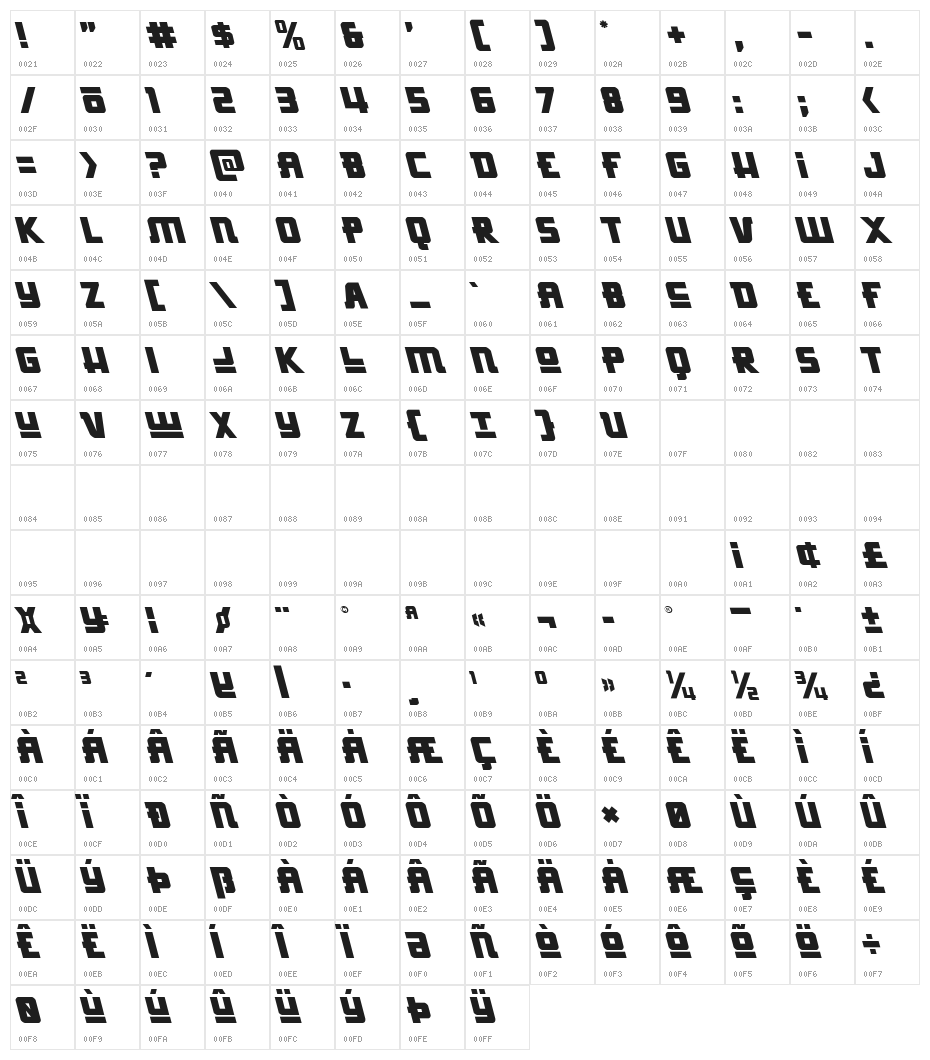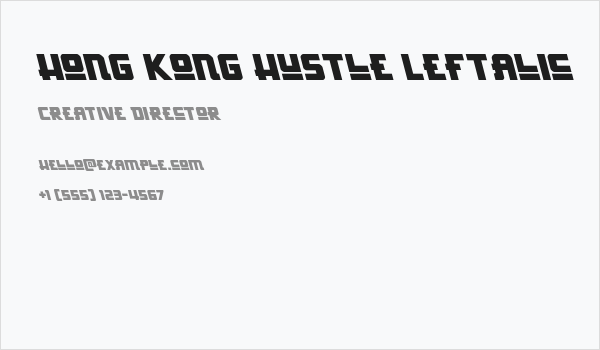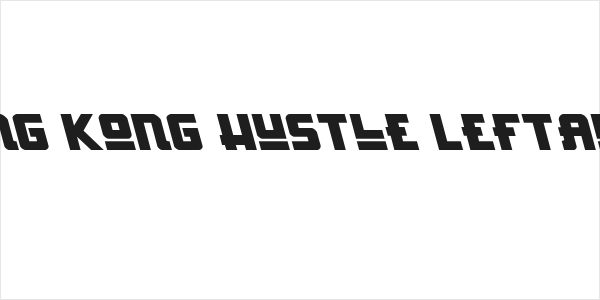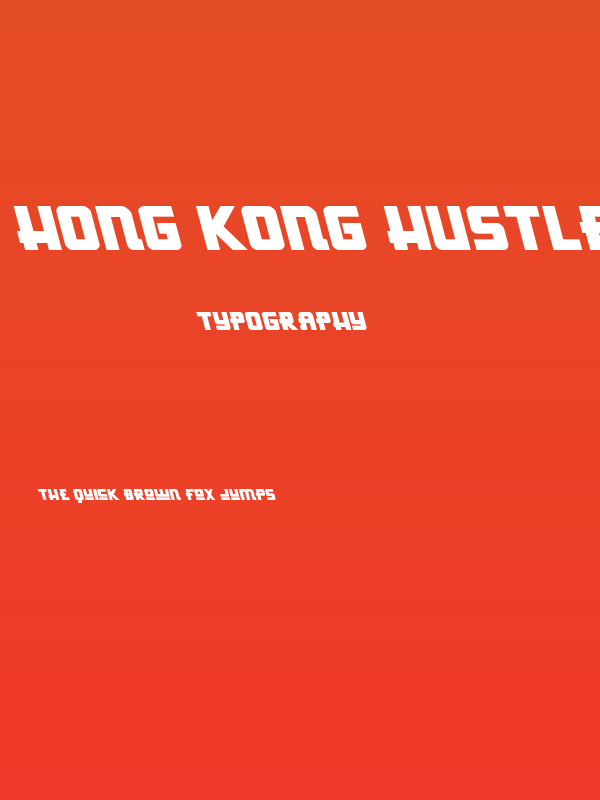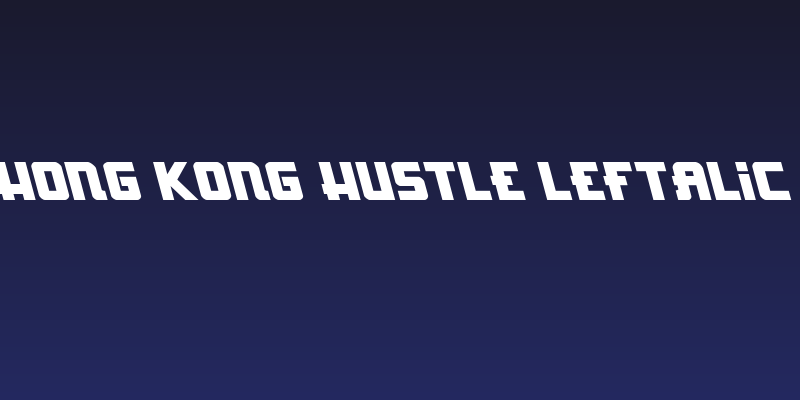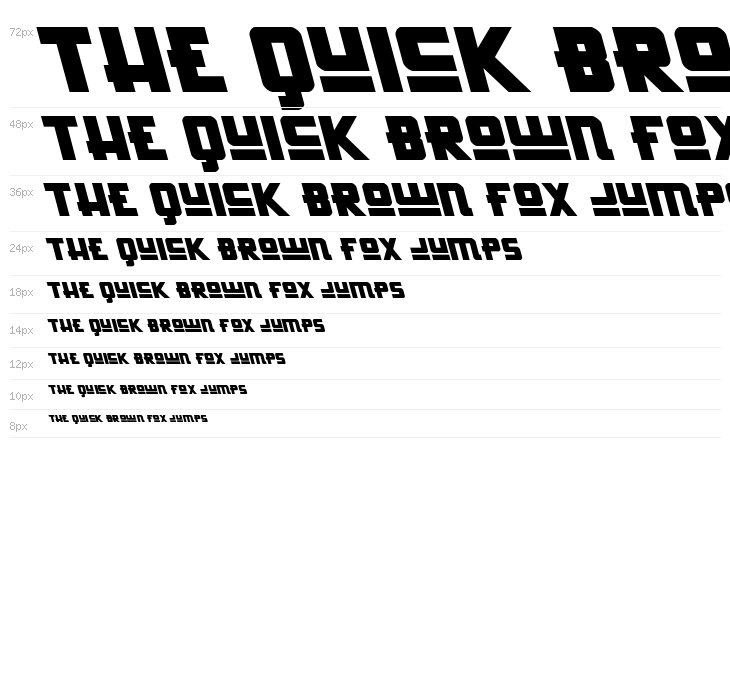
Hong Kong Hustle Leftalic Font
Hong Kong Hustle Leftalic Description
This font features a bold and dynamic design with a distinct left-leaning slant, giving it a sense of motion and energy. The characters are blocky and geometric, with sharp angles and a strong presence. The uppercase and lowercase letters maintain a consistent style, with some characters incorporating unique cutouts and shapes that add to the font's modern and edgy appearance. The numbers and special characters follow the same bold and angular design, ensuring uniformity across all elements. This font is ideal for projects that require a striking and contemporary look.
| Proposed Projects | Perfect for urban-themed posters, video game titles, sports branding, and dynamic advertisements. |